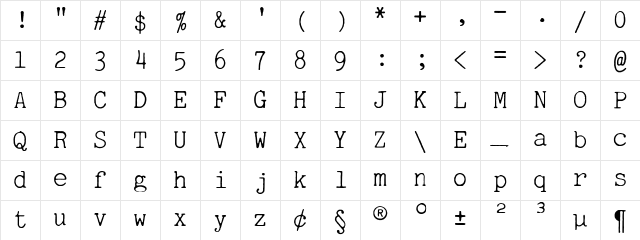
01196a Regular
Complete 01196a Regular glyph index. Displaying only characters natively supported by 01196a Regular font.
Design Context for 01196a
01196a is a composed and adaptable typeface that performs quietly and consistently across a wide range of design contexts.